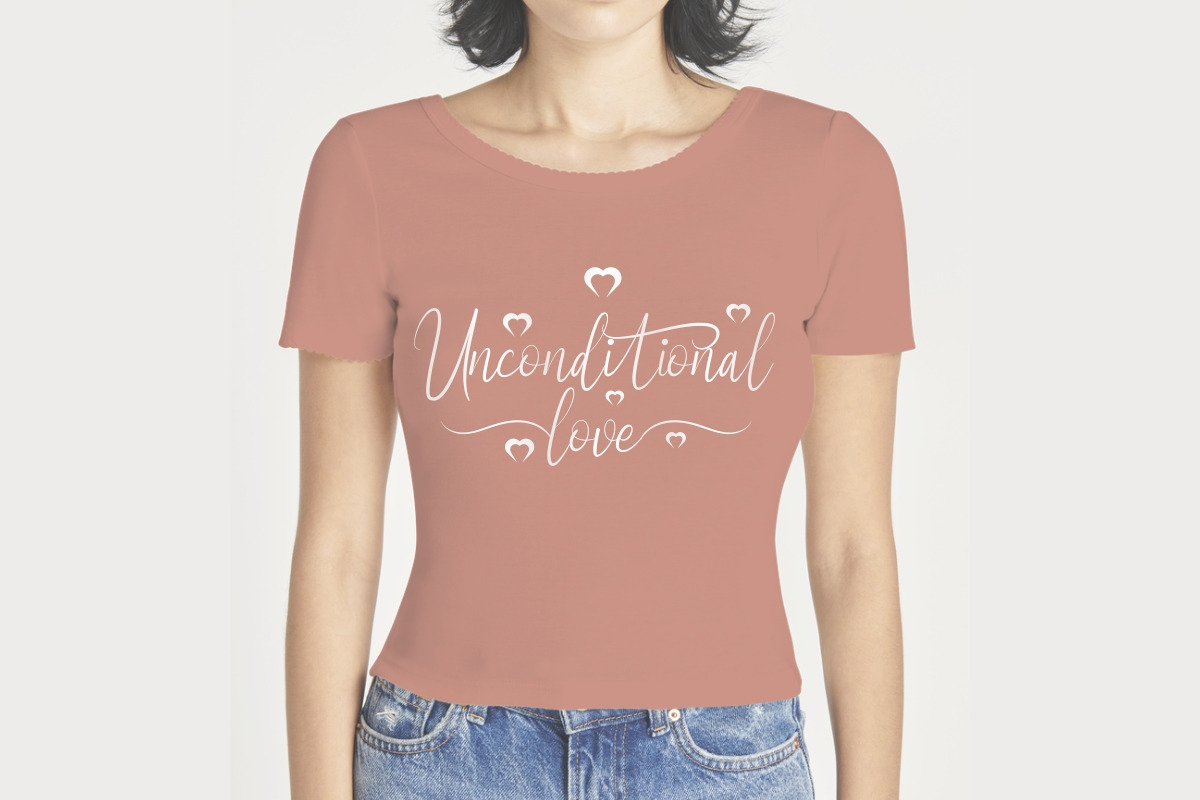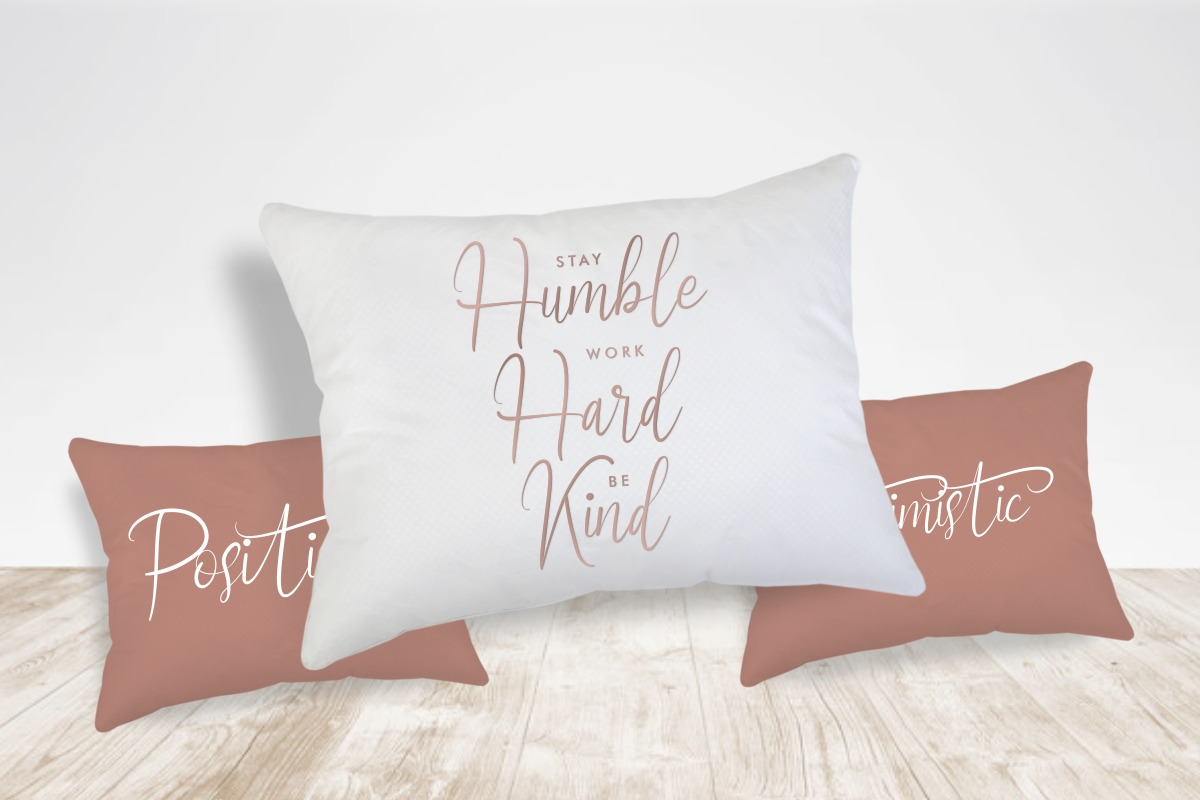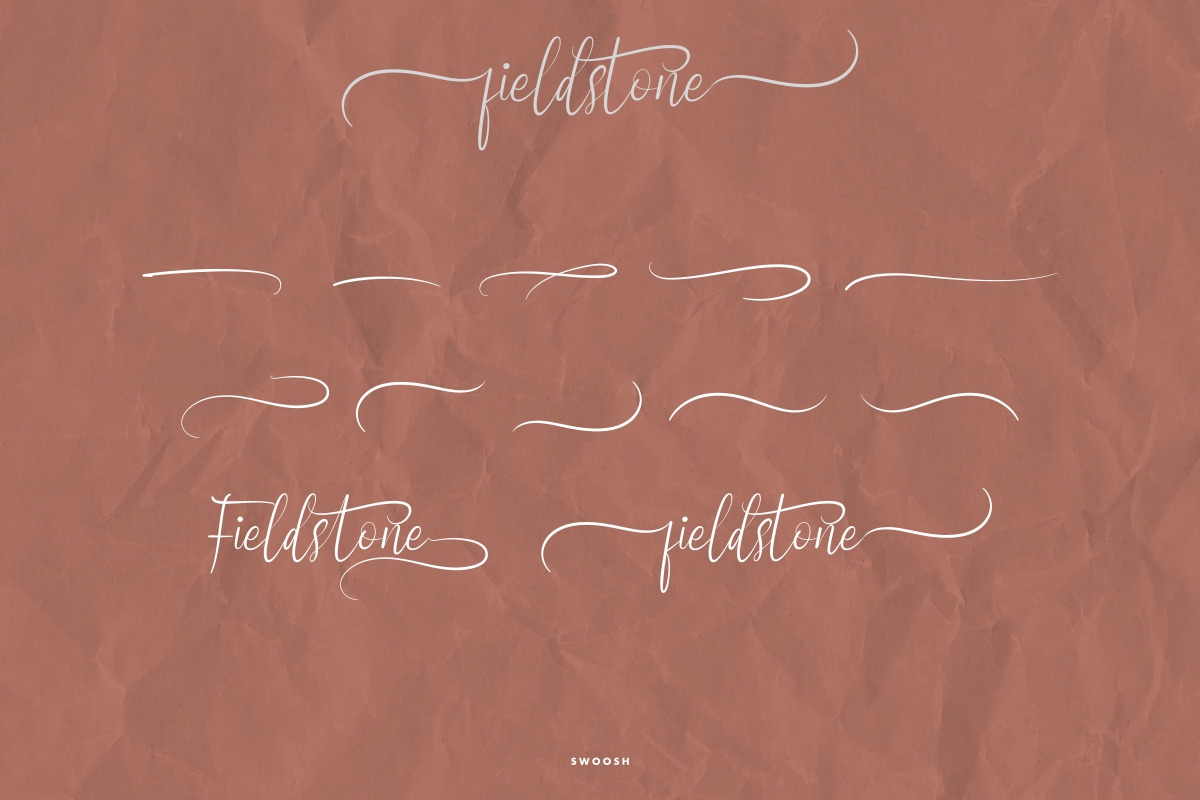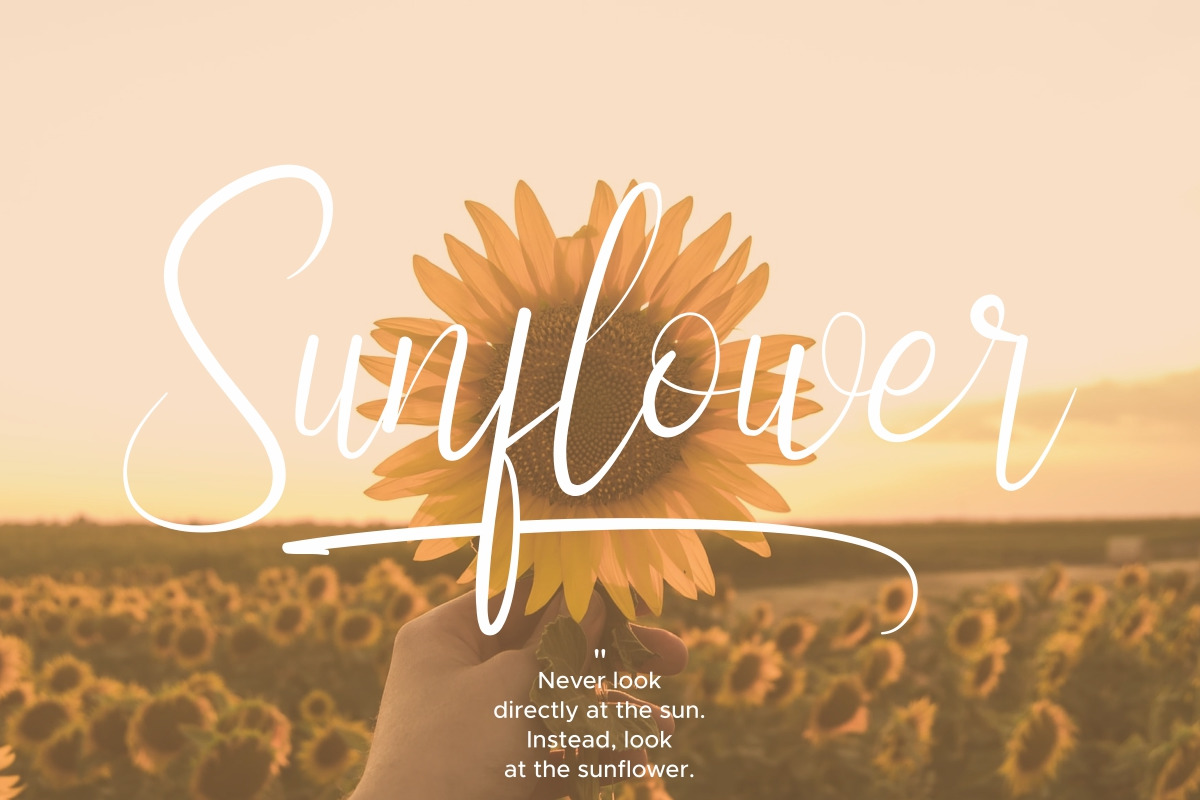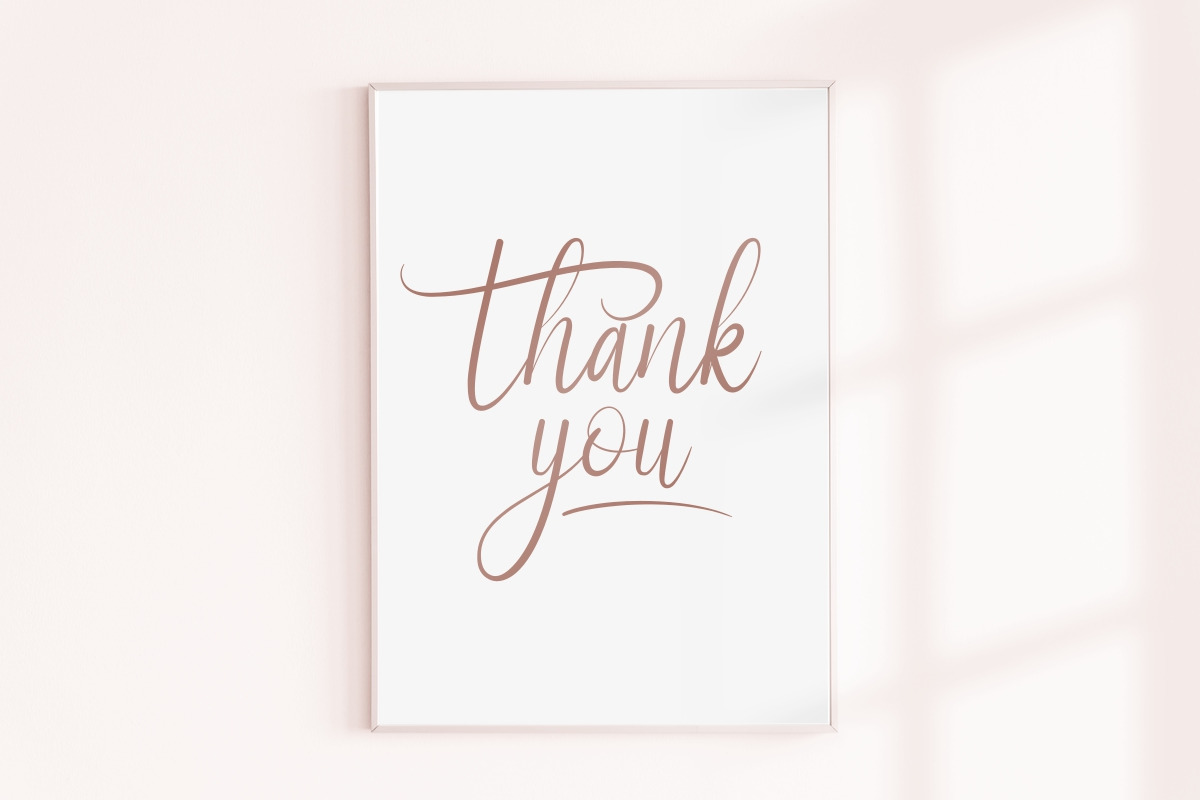
Fieldstone Font
Fieldstone is a Modern brush calligraphy font. The style of this font are stylish, clean, elegant, luxury and classic brush font. Almost all industries will be match for this typeface: wedding, events, real estate, architect, law firm, florist, gardening, makeup artist, travel, hotel, musician etc